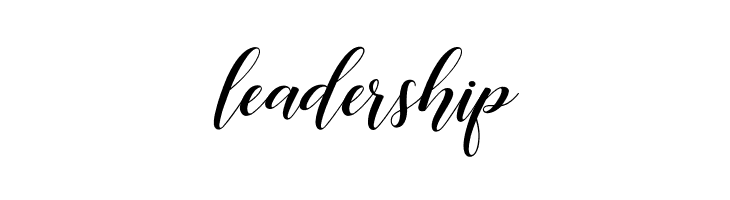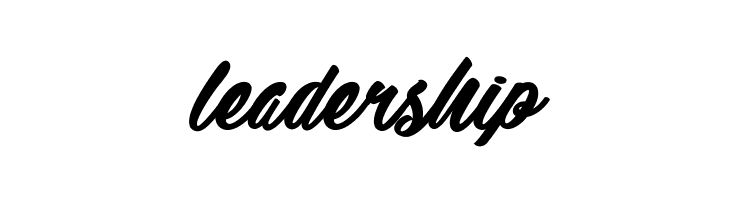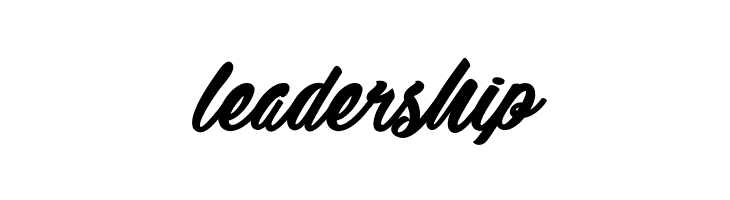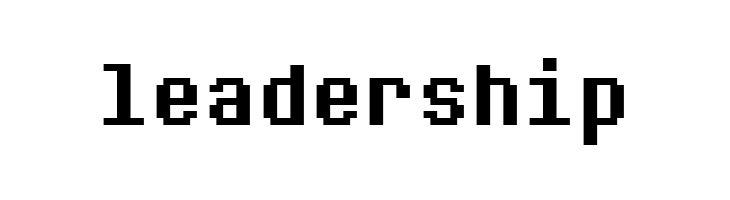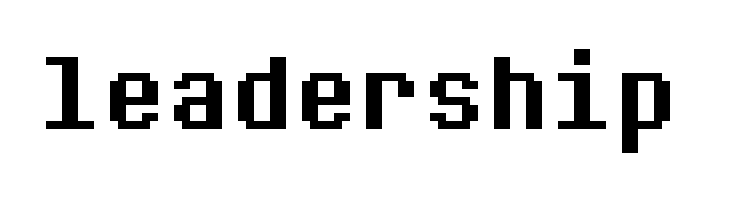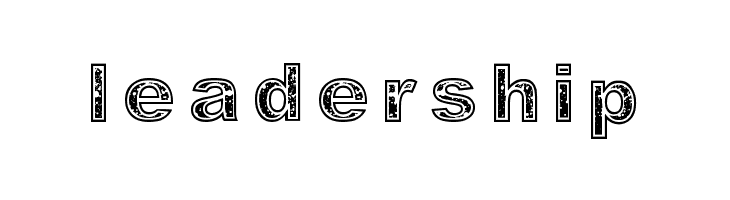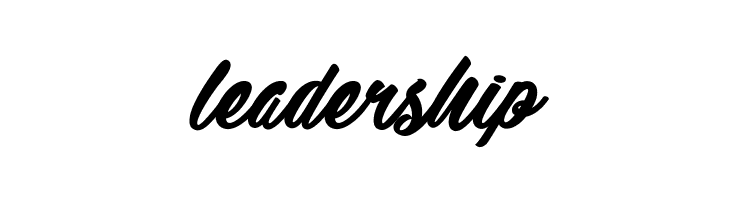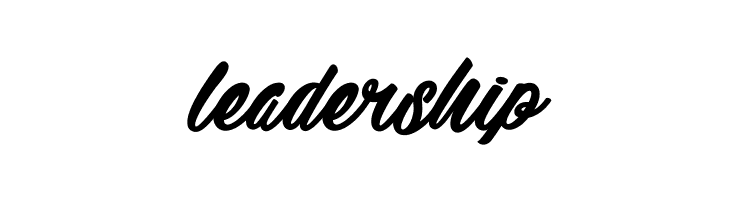
A whimsical and artistic font with fluid, hand-drawn characteristics.
An artistic, calligraphic font with dynamic curves and angles.
A classic serif typeface with elegant serifs and balanced proportions.
A playful, handwritten font with a creative and informal style.
A fluid and artistic script font with a handwritten quality.
A bold, expressive font with a playful, handwritten style.
A fluid and elegant script font with dynamic, flowing letterforms.
A dynamic and elegant script font with flowing letterforms.
A bold, textured font with a vintage, distressed look.
A dynamic, cursive script font with bold, sweeping strokes and elegant flourishes.
A bold, edgy graffiti-style font with sharp angles and dynamic forms.
A bold, distressed font with a grungy, textured appearance.
A bold, distressed font with a gritty, urban aesthetic.
A bold, brush-style font with dynamic and expressive strokes.
A bold, explosive display font with chaotic, jagged shapes.
A bold, fragmented font with a dynamic and edgy appearance.
A bold, distressed font with a grunge texture, perfect for edgy designs.
Condensed geometric sans-serif with angular, modern shapes.
A bold, distressed font with a grunge texture and rugged appearance.
A playful and quirky font with exaggerated curves and angles.
A bold, distressed font with a grungy, textured appearance.
A structured slab serif font with strong, geometric lines and balanced proportions.
A playful, handwritten script font with bold strokes and a dynamic style.
A playful, handwritten script font with a modern and energetic style.
An elegant and flowing script font with graceful, cursive letterforms.
A bold, cursive font with interconnected characters and a flowing, elegant style.
A bold, cursive font with fluid, connected strokes and a handwritten style.
A bold, cursive font with interconnected, flowing characters.
A bold, cursive font with elegant, sweeping curves and high contrast.
A bold, pixelated font with a retro, digital aesthetic.
A pixelated, monospaced font with a retro digital aesthetic.
A bold, flowing script font with elegant and dynamic strokes.
A bold, distressed font with a textured, grunge effect for a rugged, vintage look.